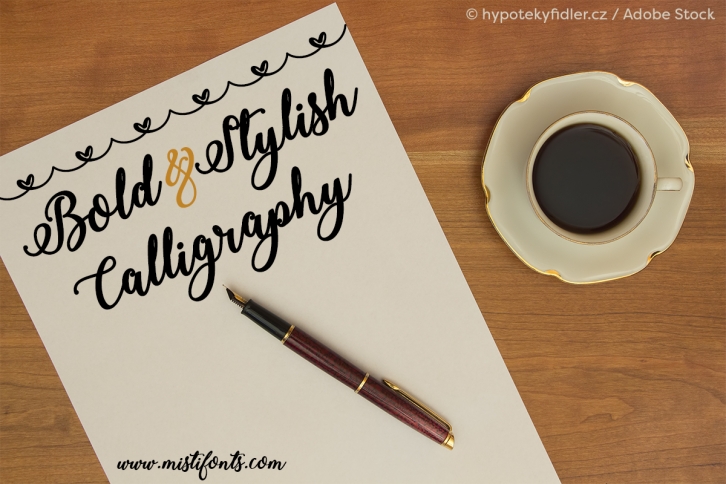
Bold & Stylish Calligraphy is a beautiful font that was designed by Misti Fonts. It's a great choice for designers and creatives who need such a font. It was released on March 18, 2017 and the file size is 7.20 MB. Bold & Stylish Calligraphy may give a more youthful, expressive and casual look to your project. It is a very beautiful, refined, elegant, and high-quality font.